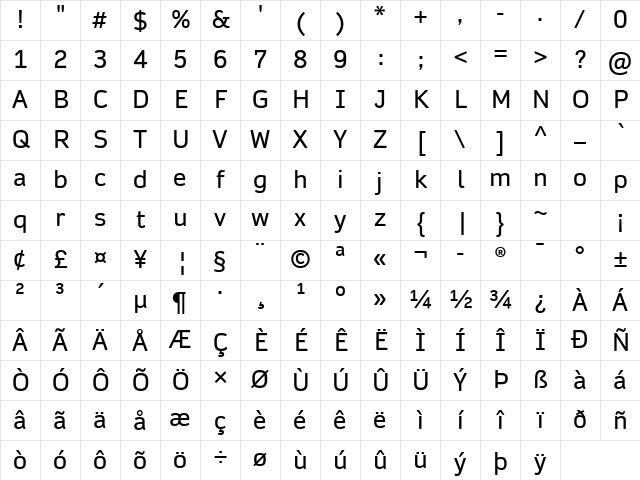
Daytona Regular
Foundry: Monotype Imaging Inc.
Designer: Jim Wasco
Design Context for Daytona
Daytona is a composed and adaptable typeface that performs quietly and consistently across a wide range of design contexts.